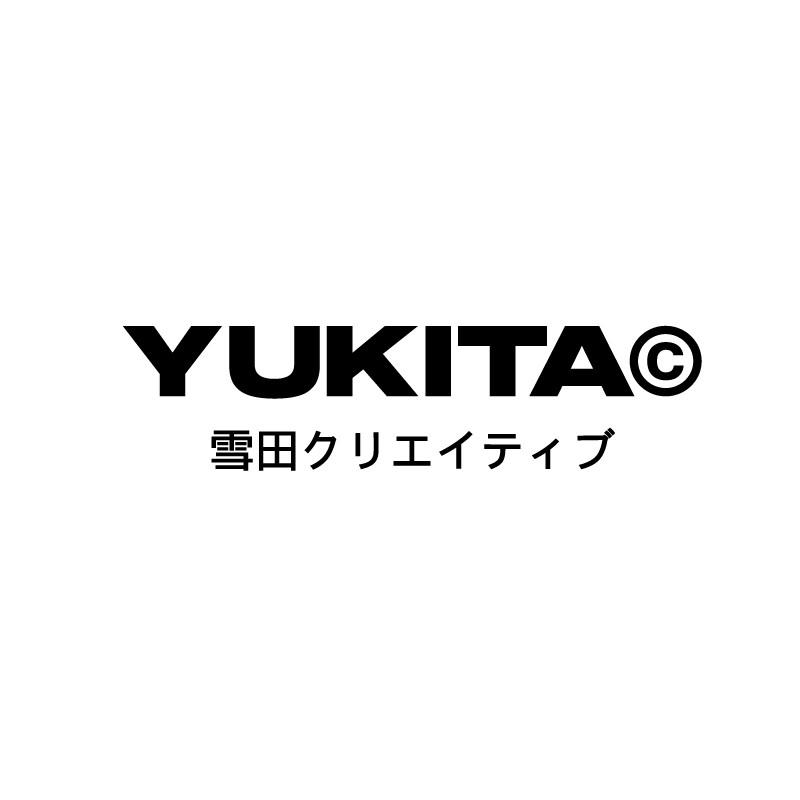
Yukita Font Description
Yukita is a geometric sans serif font that is consistent in the design of each letterform. The sharpness and logic of each shape allow for balance to be maintained in every form, resulting in a clean and perfect aesthetic. Simple, minimalist, and modern, it can be used on a wide variety of projects. The limit is only your imagination!